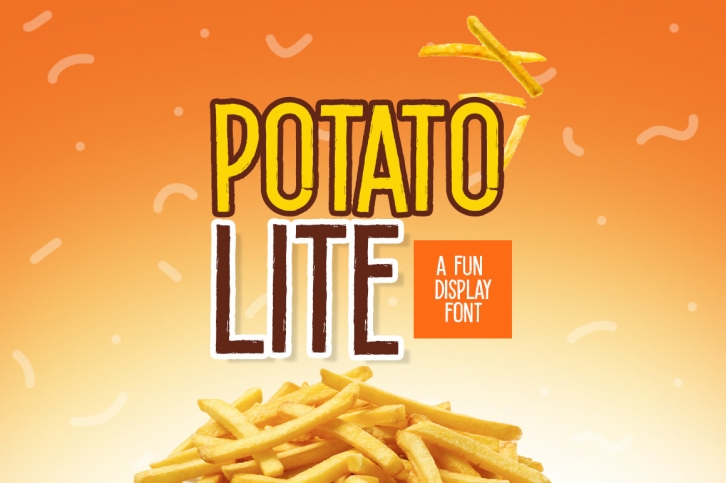
Potato Lite is a fun and cool display font. Whether you use it for cartoon-related designs, children’s games, or just any creation that requires a lovely touch, this font is an amazing choice! Add it to your most creative ideas, and notice how it makes them come alive!